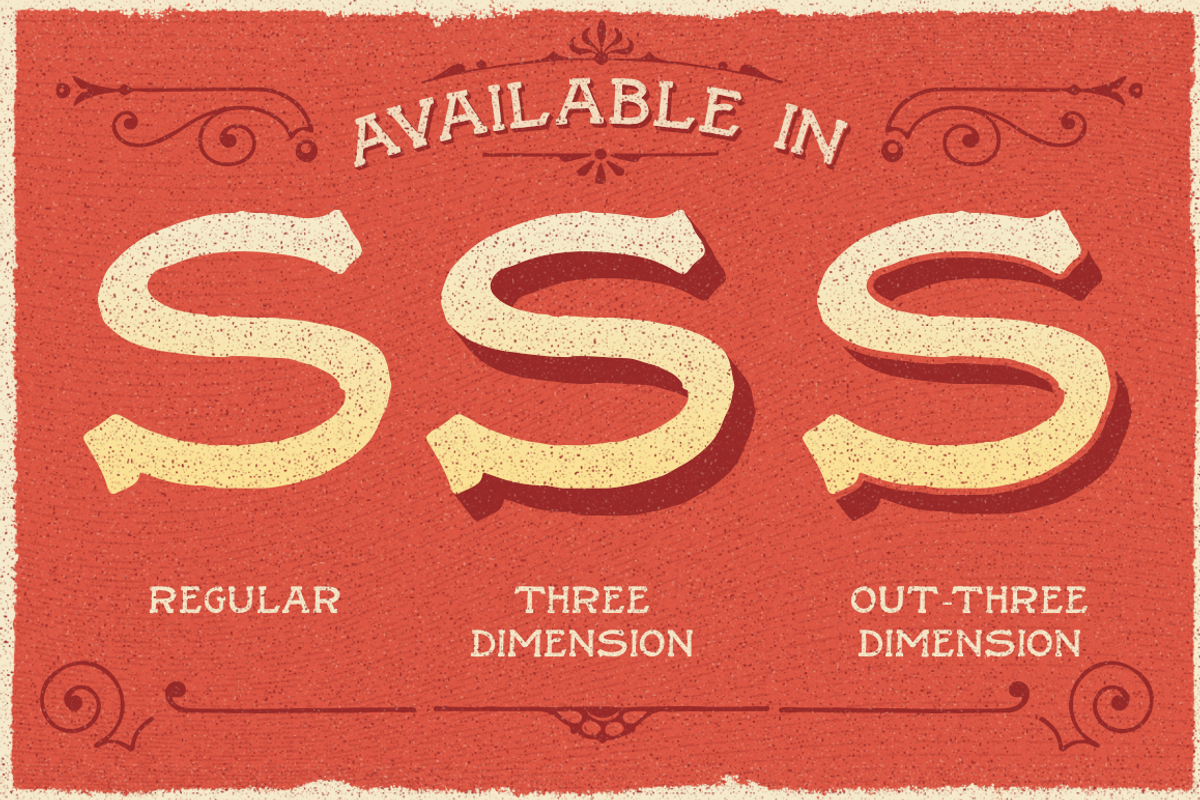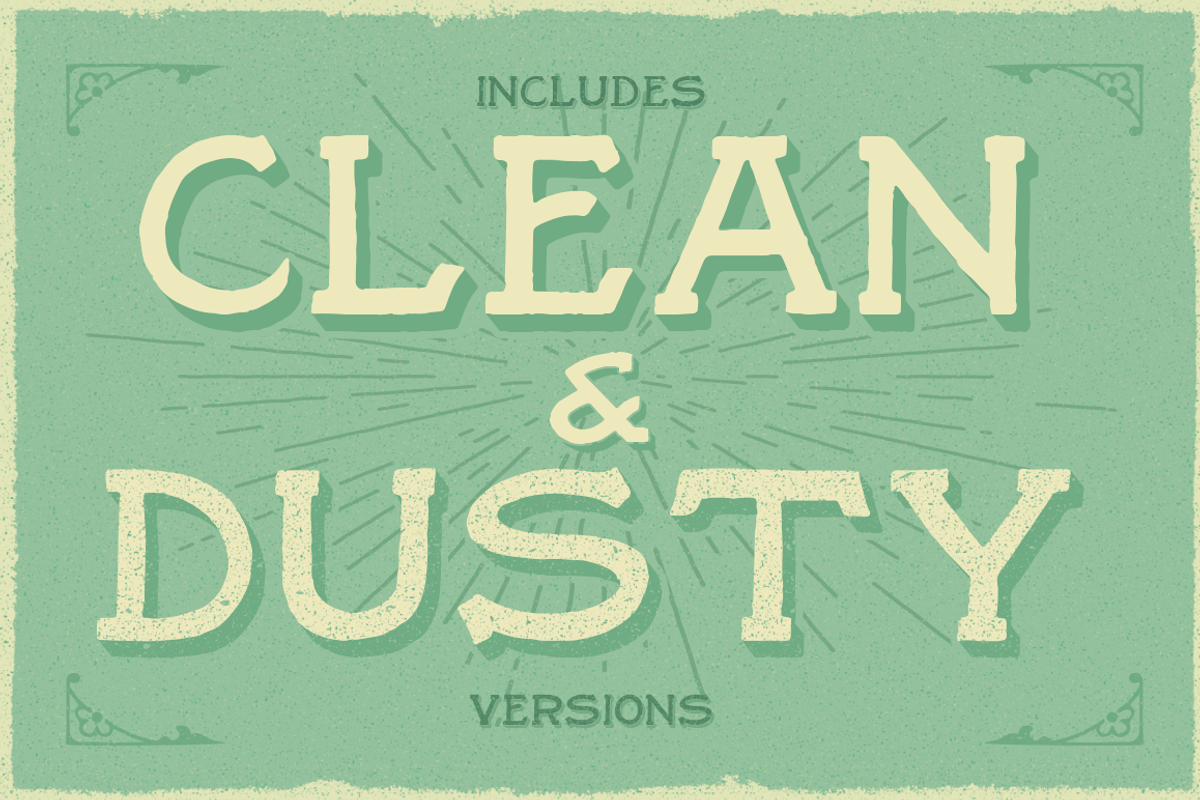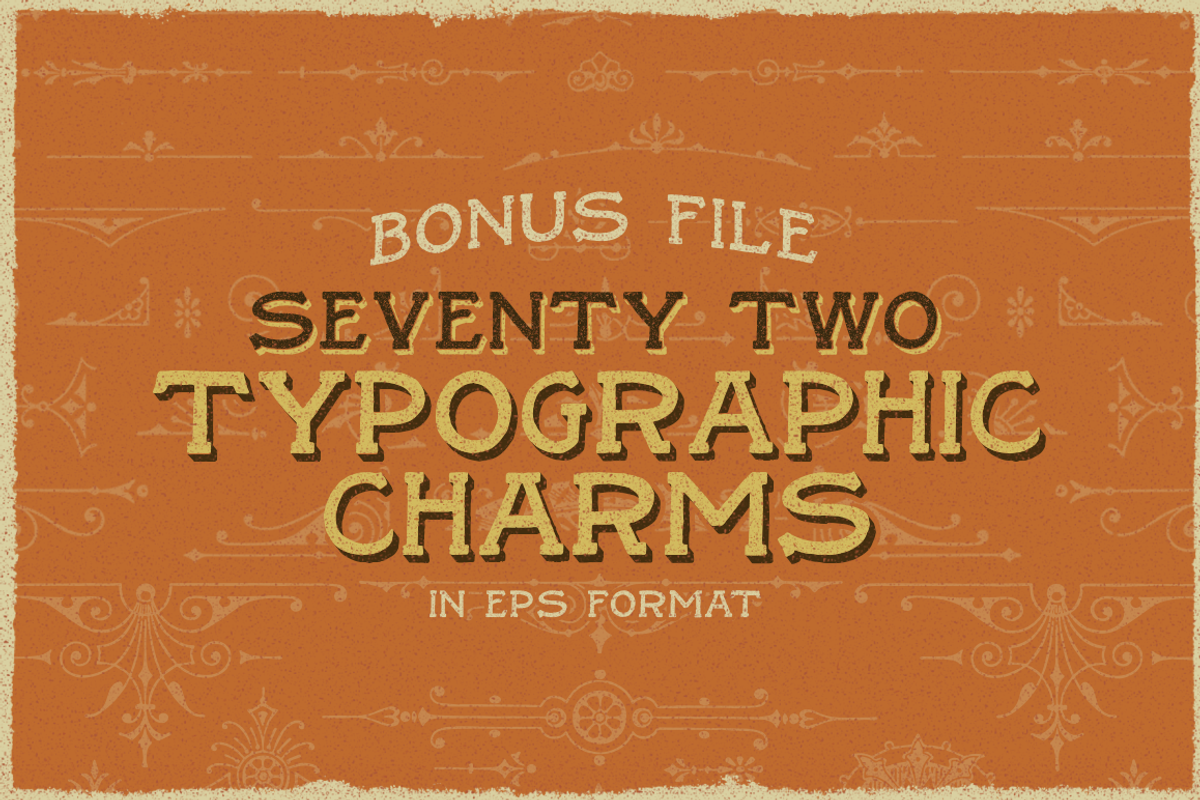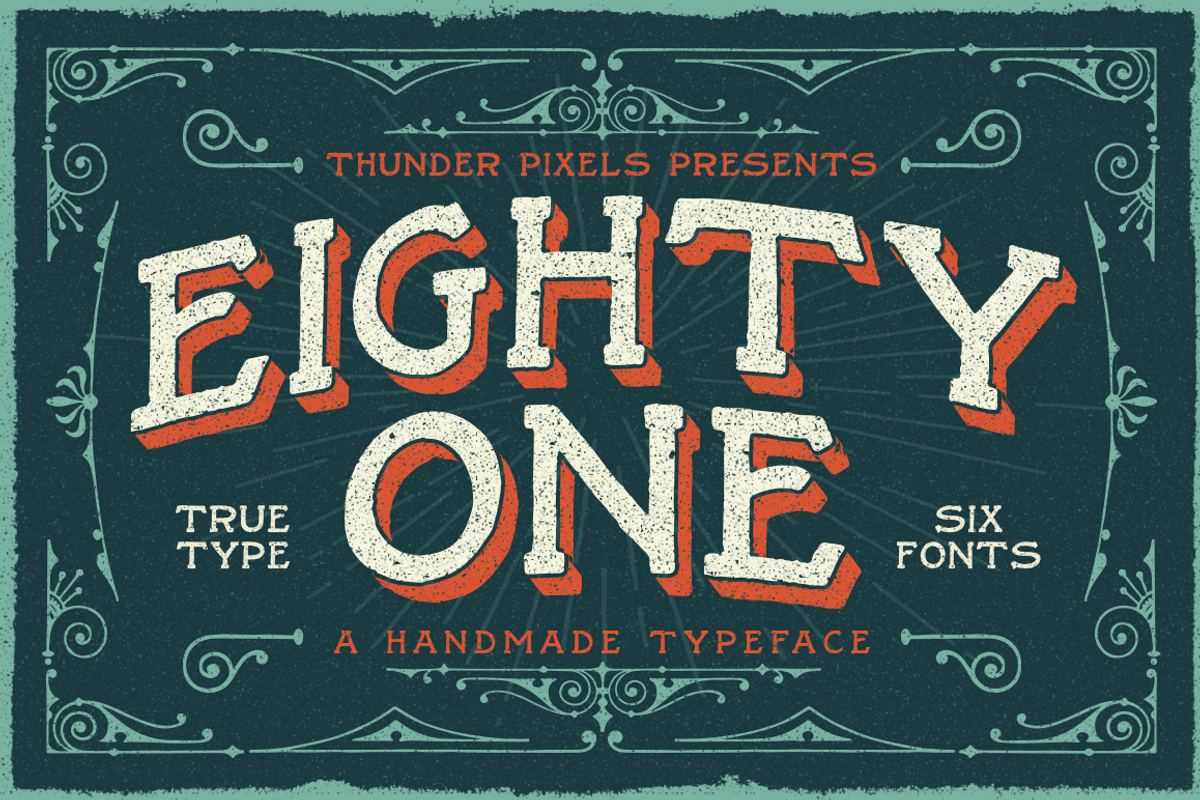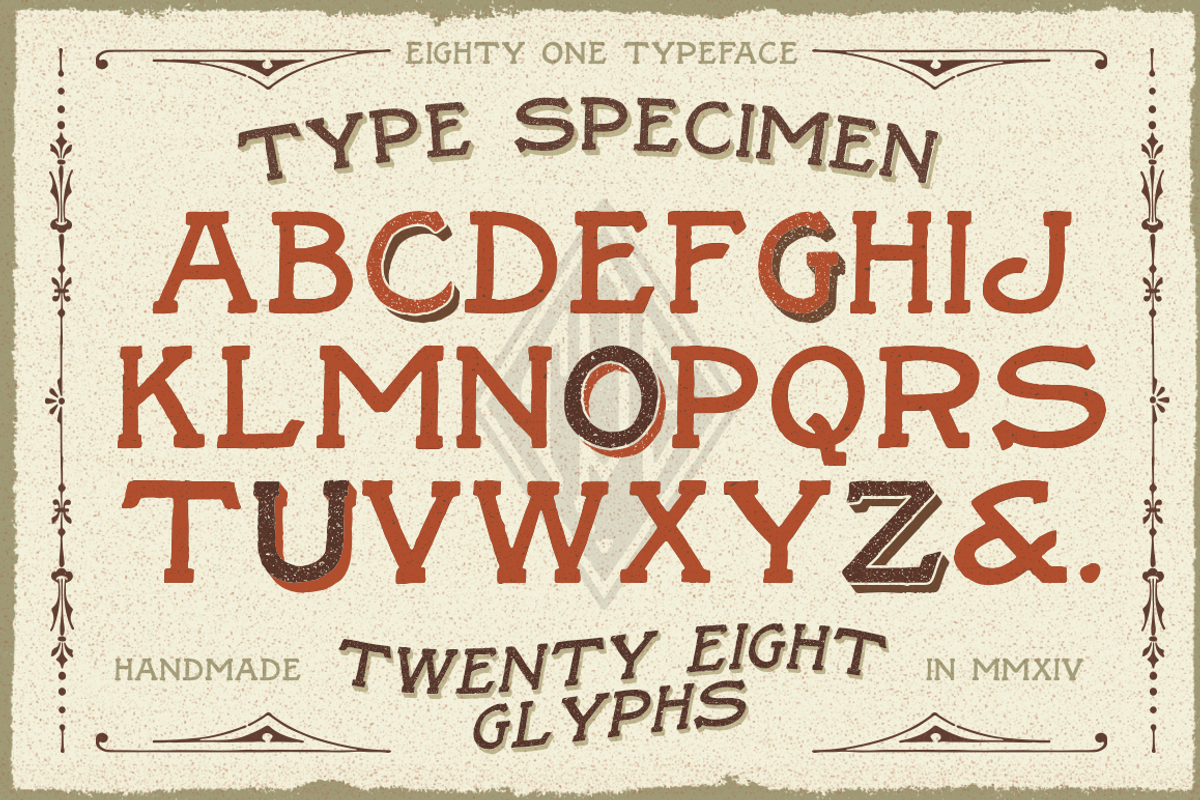
Eighty One Typeface
Eighty One Typeface by Thundr Co. is a font selected for branding, posters, packaging, typography.
- 28 Hand-drawn glyhps
Why Eighty One Typeface is worth a look
Eighty One Typeface by Thundr Co. fits naturally into Branding, posters, packaging, typography.